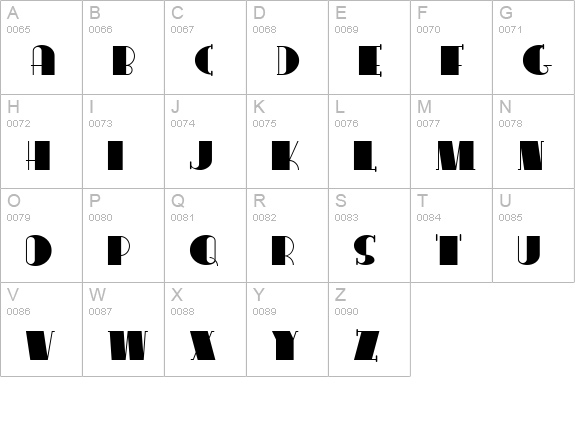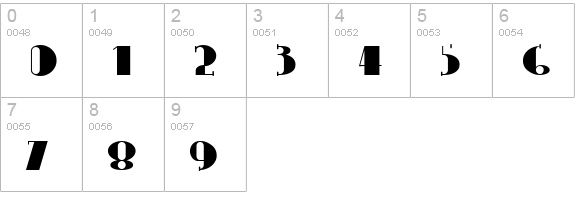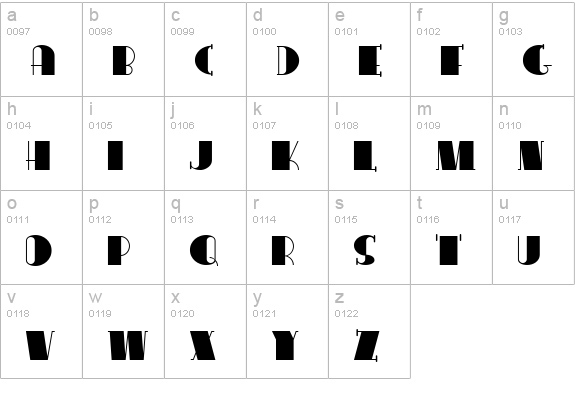
Conga Line NF font is a vibrant and fun display typeface that exudes energy and movement. With its playful and whimsical design, this font is perfect for adding a touch of joy to your projects. The rounded edges and flowing lines give Conga Line NF a dynamic and lively appearance that is sure to capture attention. Whether you're creating party invitations, posters, or any other design that calls for a festive vibe, this font will bring a sense of celebration to your work. Best of all, Conga Line NF font is completely free to download at FontsMarket.com. This means you can easily access this charming typeface and incorporate it into your designs without any cost. Don't miss out on the opportunity to add a touch of cheerfulness to your projects with Conga Line NF font - download it today and let the party begin!